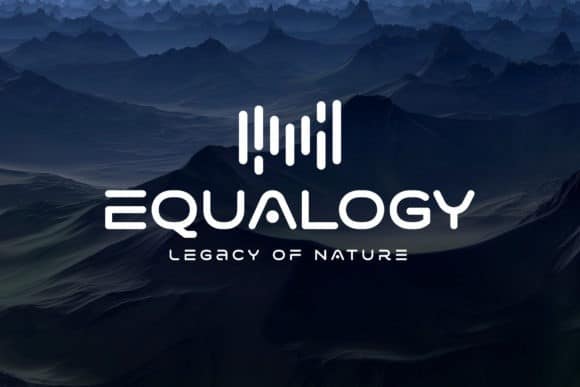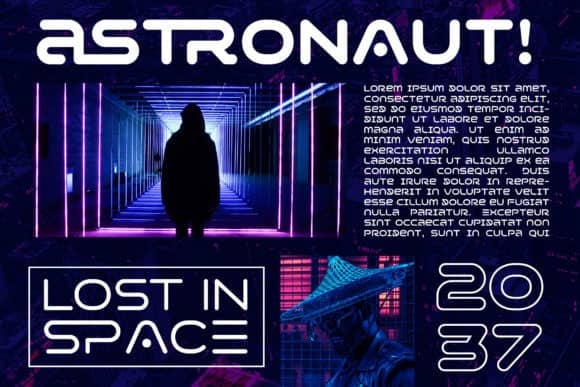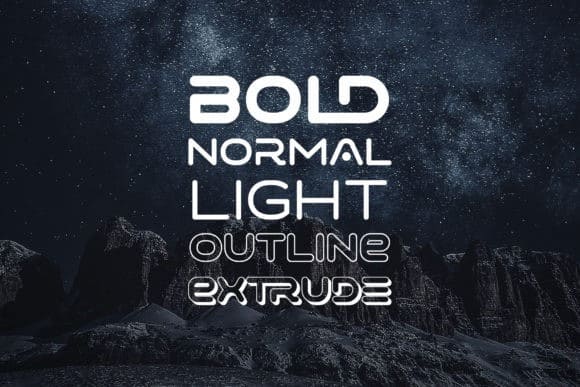
Varino Display Font
Varino Display Font is a futuristic sans-serif font family that includes custom shadow variations for a layered 3d font effect. Made from font designer named Arterfak. This font is a modern and futuristic display font with an undeniably clean feel. With its neat and beautiful arrangement of letters, this typeface will look outstanding in both formal and non-formal designs.